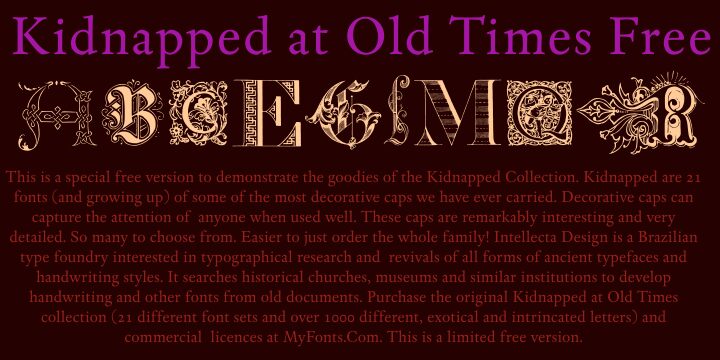
Kidnapped at Old Times by Paulo W is a free Gothic initials font steeped in the look of decorated manuscript capitals. Each letter receives its own treatment, from knotted bands and striped fills to foliage, figures, and curling penwork.
For historical publishing, the ornate capitals can introduce chapters or mark special passages. They also suit theatrical posters and fantasy game graphics, where elaborate lettering can become part of the scene. Across these uses, the changing motifs provide a miniature illustration as well as an initial.
Kidnapped at Old Times Free is by Intellecta Design.
The Kidnapped collection contains 21 fonts and is expanding. Intellecta Design is a Brazilian type foundry focused on typographical research and revivals of ancient typefaces and handwriting styles. It searches historical churches, museums, and similar institutions to develop handwriting and other fonts from old documents.